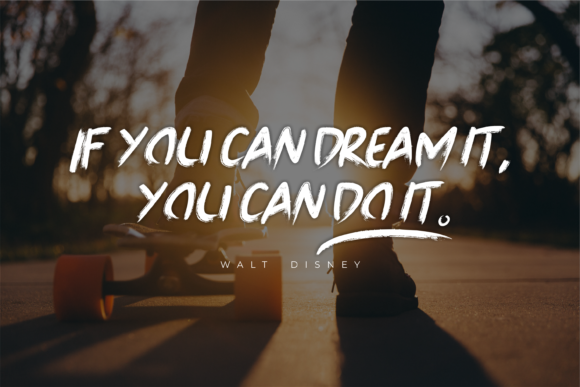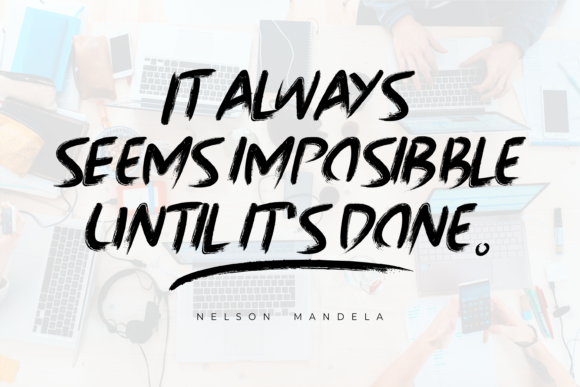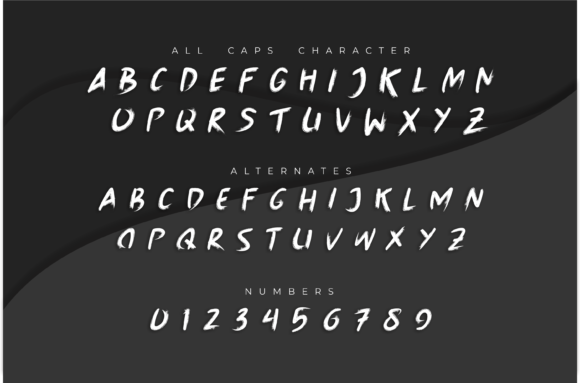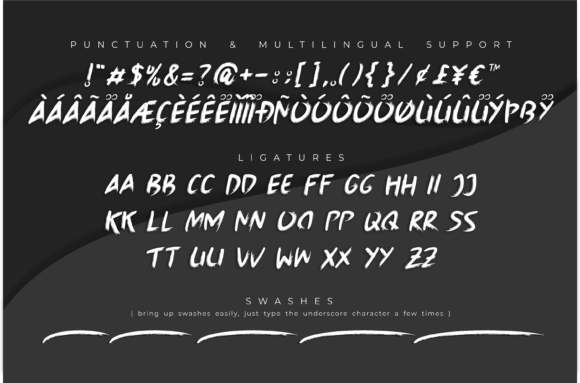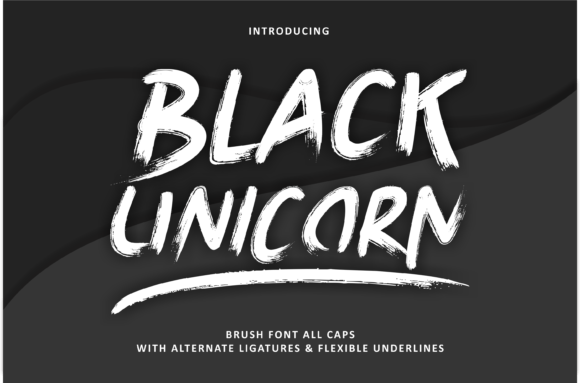
Unleash Your Creativity with Black Unicorn Font: A Brush-Style Handwritten Masterpiece
Are you tired of using the same old fonts for your creative projects? Do you want to add a touch of personality and whimsy to your designs? Look no further than the Black Unicorn Font, a stunning brush-style handwritten font that’s sure to make your work stand out. In this article, we’ll dive into the features and benefits of this amazing font, and explore how it can elevate your designs to the next level.
What is Black Unicorn Font?
Black Unicorn Font is a beautiful brush-style handwritten font that’s designed to make your creative projects shine. With its unique blend of elegance and playfulness, this font is perfect for designers, crafters, and artists who want to add a touch of magic to their work. Whether you’re creating invitations, greeting cards, posters, or social media graphics, Black Unicorn Font is the perfect choice.
Key Features of Black Unicorn Font
So, what makes Black Unicorn Font so special? Here are just a few of its key features:
- Brush-style handwritten design: Black Unicorn Font features a beautiful, hand-brushed design that’s reminiscent of handwritten script.
- Lots of alternate ligatures and swashes: This font includes a wide range of alternate ligatures and swashes, allowing you to customize your text and make it look like your own handwriting.
- Easily accessible swashes: To bring up swashes easily, simply type the underscore character a few times. It’s that easy!
- PUA encoded: Black Unicorn Font is PUA (Private Use Area) encoded, which means you can access all of the glyphs and swashes with ease.
Benefits of Using Black Unicorn Font
So, why should you choose Black Unicorn Font for your creative projects? Here are just a few benefits:
- Adds a personal touch: With its unique, hand-brushed design and customizable swashes, Black Unicorn Font allows you to add a personal touch to your designs.
- Perfect for creative projects: Whether you’re creating invitations, greeting cards, posters, or social media graphics, Black Unicorn Font is the perfect choice.
- Versatile: Black Unicorn Font is versatile and can be used for a wide range of projects, from formal events to casual social media posts.
Tips and Tricks for Getting the Most Out of Black Unicorn Font
Here are a few tips and tricks for getting the most out of Black Unicorn Font:
- Experiment with different swashes: Don’t be afraid to try out different swashes and ligatures to find the perfect combination for your design.
- Use it for headlines and titles: Black Unicorn Font is perfect for headlines and titles, adding a touch of elegance and whimsy to your designs.
- Pair it with other fonts: Try pairing Black Unicorn Font with other fonts to create a unique and eye-catching design.
In conclusion, Black Unicorn Font is a stunning brush-style handwritten font that’s perfect for designers, crafters, and artists who want to add a touch of magic to their creative projects. With its unique blend of elegance and playfulness, this font is sure to make your work stand out. Whether you’re creating invitations, greeting cards, posters, or social media graphics, Black Unicorn Font is the perfect choice. So why wait? Download Black Unicorn Font today and unleash your creativity!